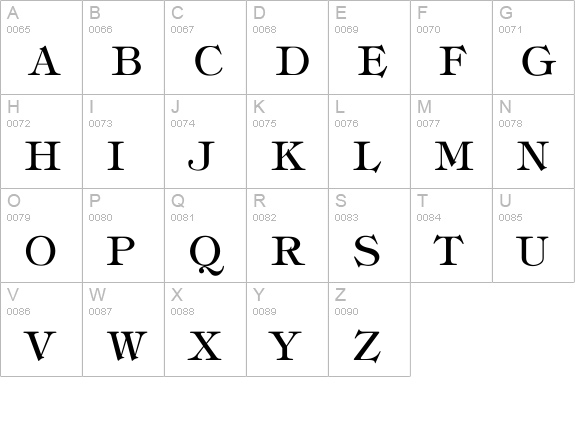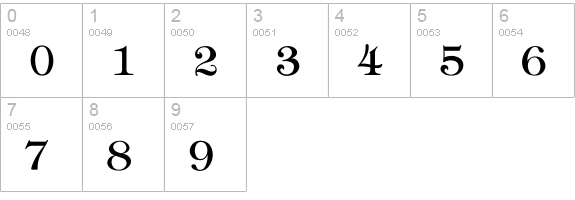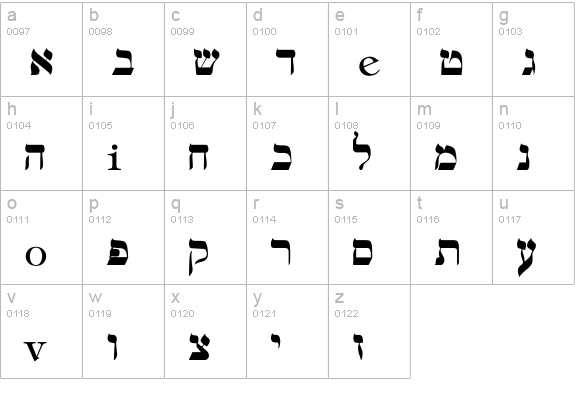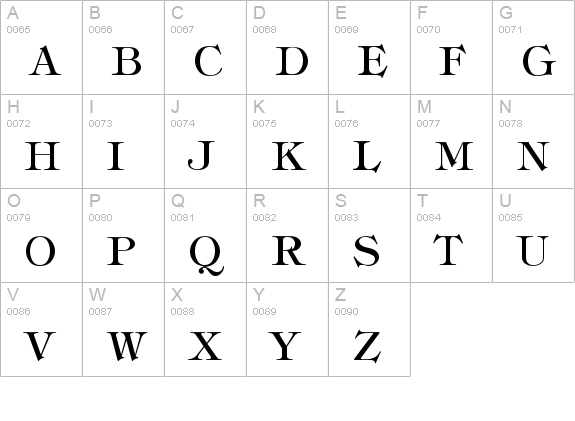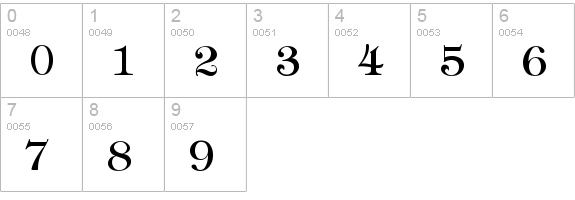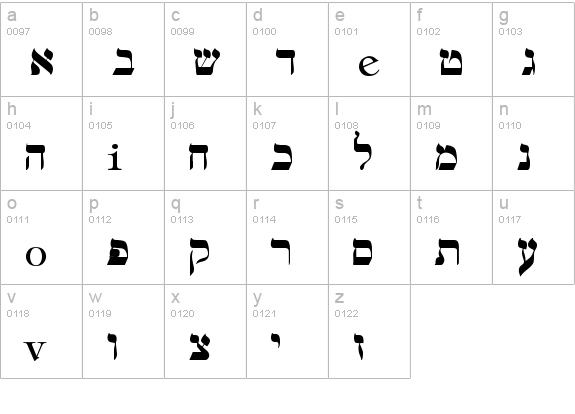
hebrew Font Details
The Hebrew font is a beautifully crafted typeface that captures the essence and elegance of the Hebrew script. Its intricate curves and delicate strokes bring a sense of authenticity and tradition to any design project. Whether you're creating wedding invitations, signage, or an artistic piece, this font will add a touch of Hebrew culture and heritage. What sets this Hebrew font apart is that it is not only visually stunning but also freely available to download. Yes, you heard it right! You can easily access this font without spending a dime. Thanks to FontsMarket.com, you can enjoy the beauty and richness of the Hebrew language without any cost. This free Hebrew font is a true treasure for designers, language enthusiasts, and anyone who appreciates the art of typography. With its wide range of characters and impeccable design, it provides endless possibilities for creative expression. Whether you're working on a personal project or a professional endeavor, this font will elevate your work and leave a lasting impression. FontsMarket.com is the go-to platform for downloading this free Hebrew font. Their user-friendly interface and extensive collection of fonts make it easy to find and download the perfect typeface for your needs. With just a few clicks, you can have this exquisite Hebrew font at your disposal, ready to enhance your designs and captivate your audience. So why wait? Start exploring the world of Hebrew typography today and unlock the potential of this free font. Whether you're a beginner or an experienced designer, this font will inspire and empower you to create exceptional designs that celebrate the beauty of the Hebrew language. Download it now at FontsMarket.com and let your creativity soar.